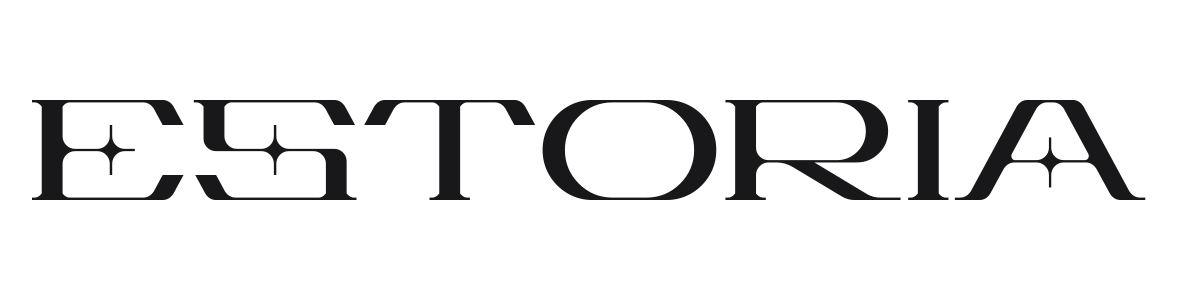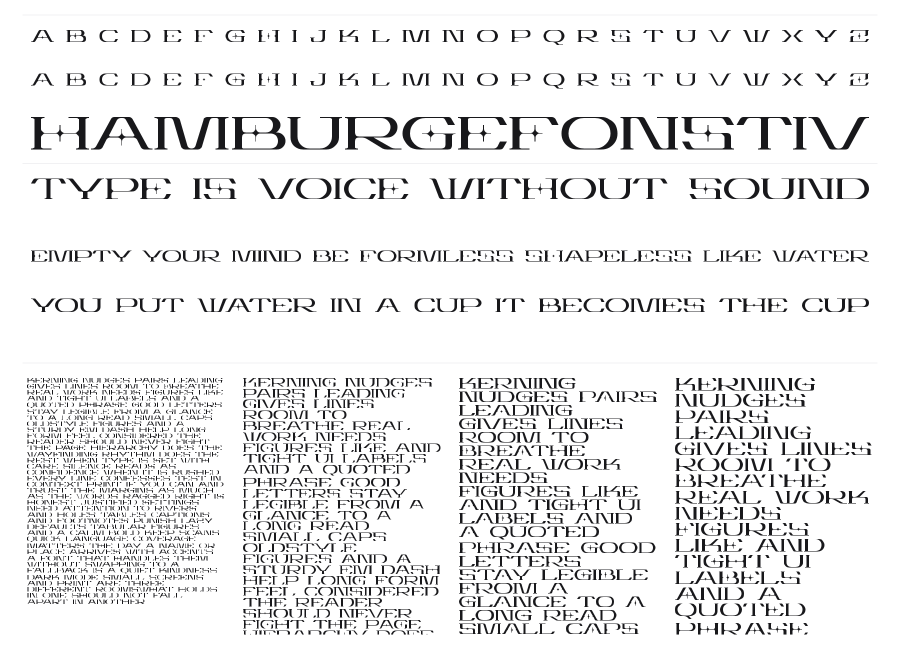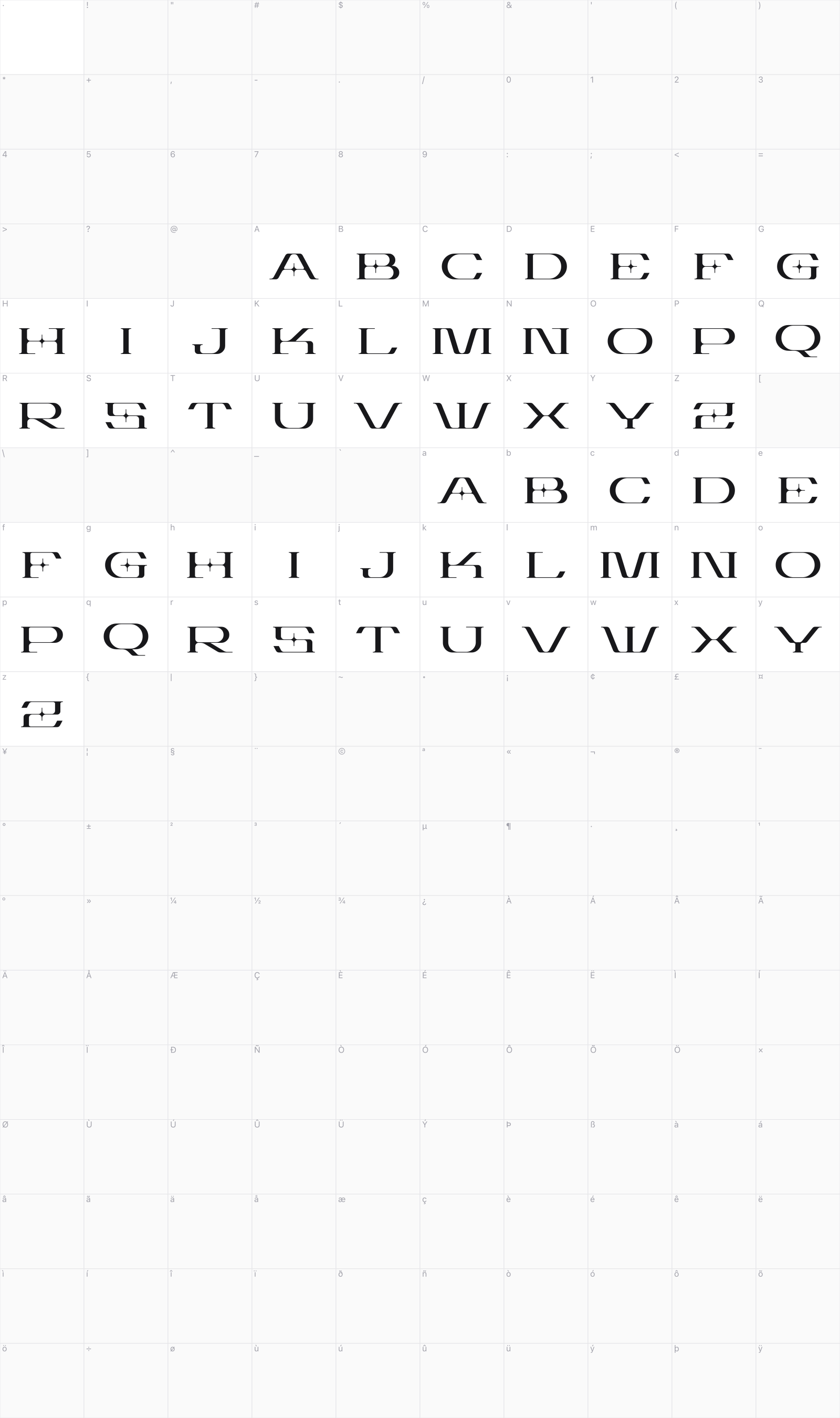
Estoria
Estoria is a wide display serif built on extreme stroke contrast and star-shaped ornaments embedded at key junction points. The decorative details pull from both art deco geometry and retro futurism, giving it a feel that sits somewhere between a 1970s album cover and a modern luxury brand. It works at large sizes where those hairline strokes and celestial details can breathe.